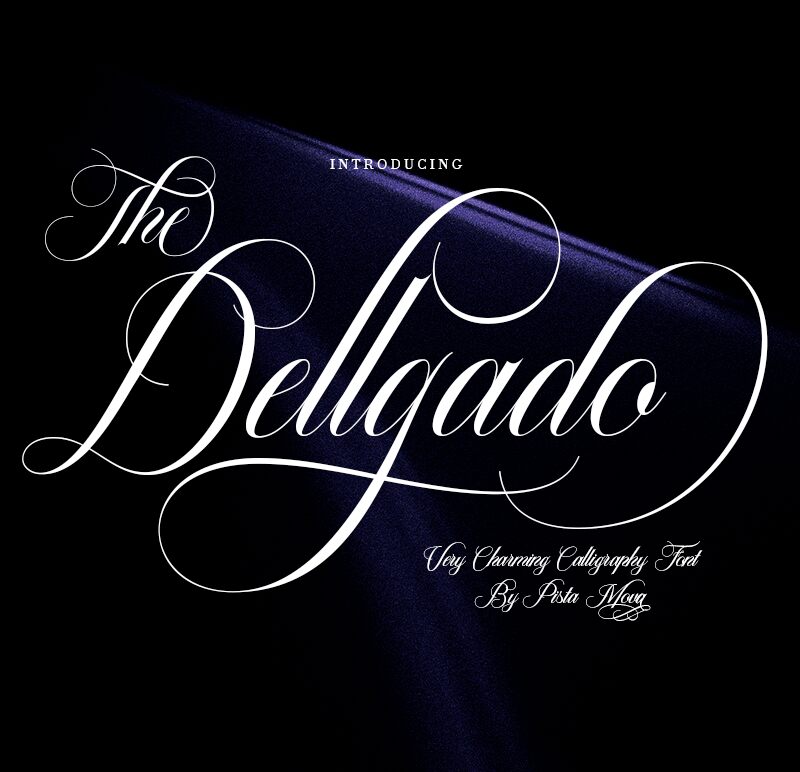
The Dellgado, designed by Pista Mova, is a captivating calligraphy font that exudes both charm and elegance. Its light weight adds a delicate touch to any design, making it perfect for various projects.
For those seeking a touch of sophistication, The Dellgado is an excellent choice for wedding invitations and thank you cards, adding a romantic flair to the occasion. Its exquisite handwritten style also lends itself beautifully to quotes and greeting cards, creating a personal and heartfelt message. Additionally, The Dellgado's graceful curves make it ideal for crafting logos that convey refinement and distinction.
Whether it's business cards or other designs in need of an artistic flourish, this PUA encoded font provides easy access to all its enchanting glyphs and swashes.